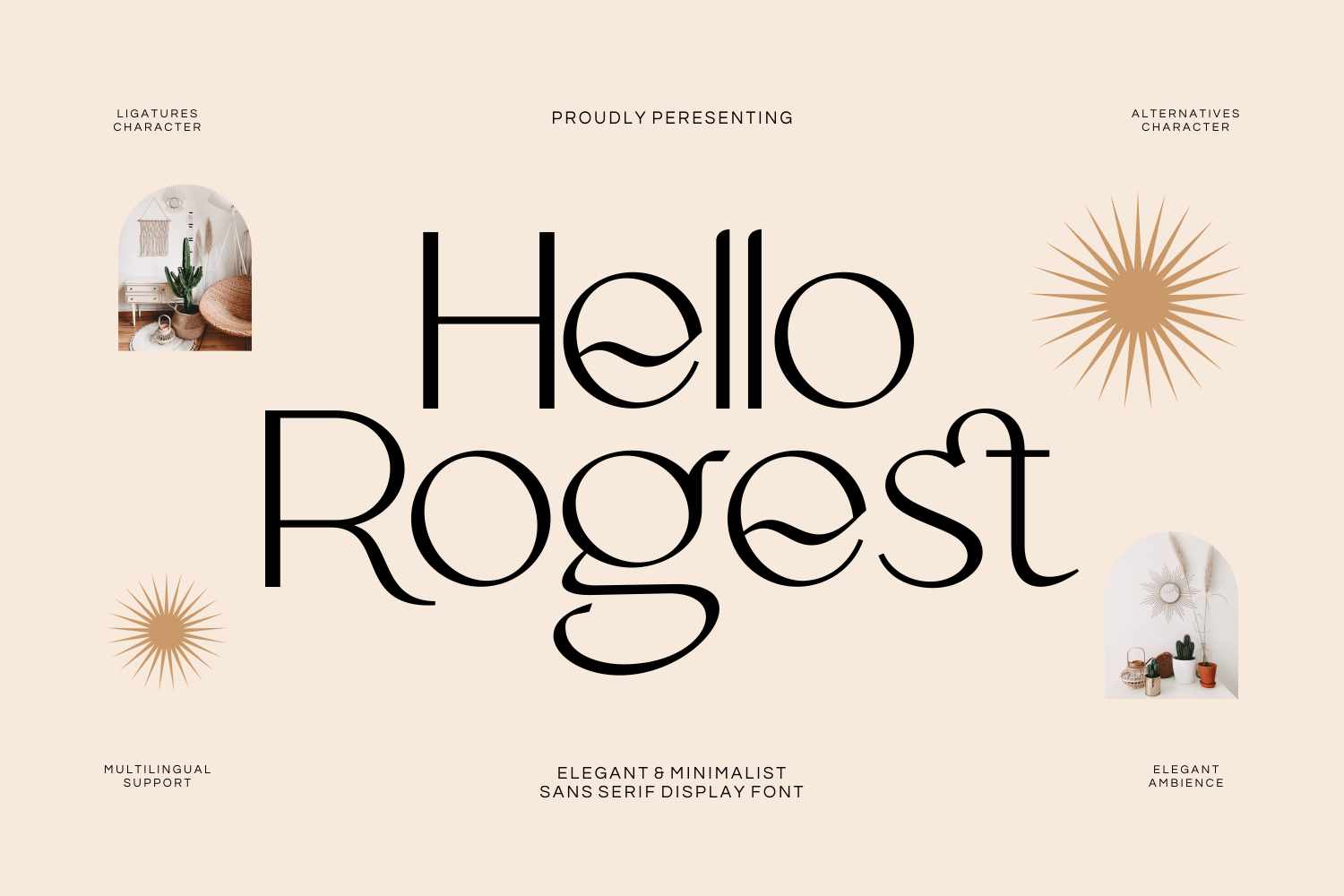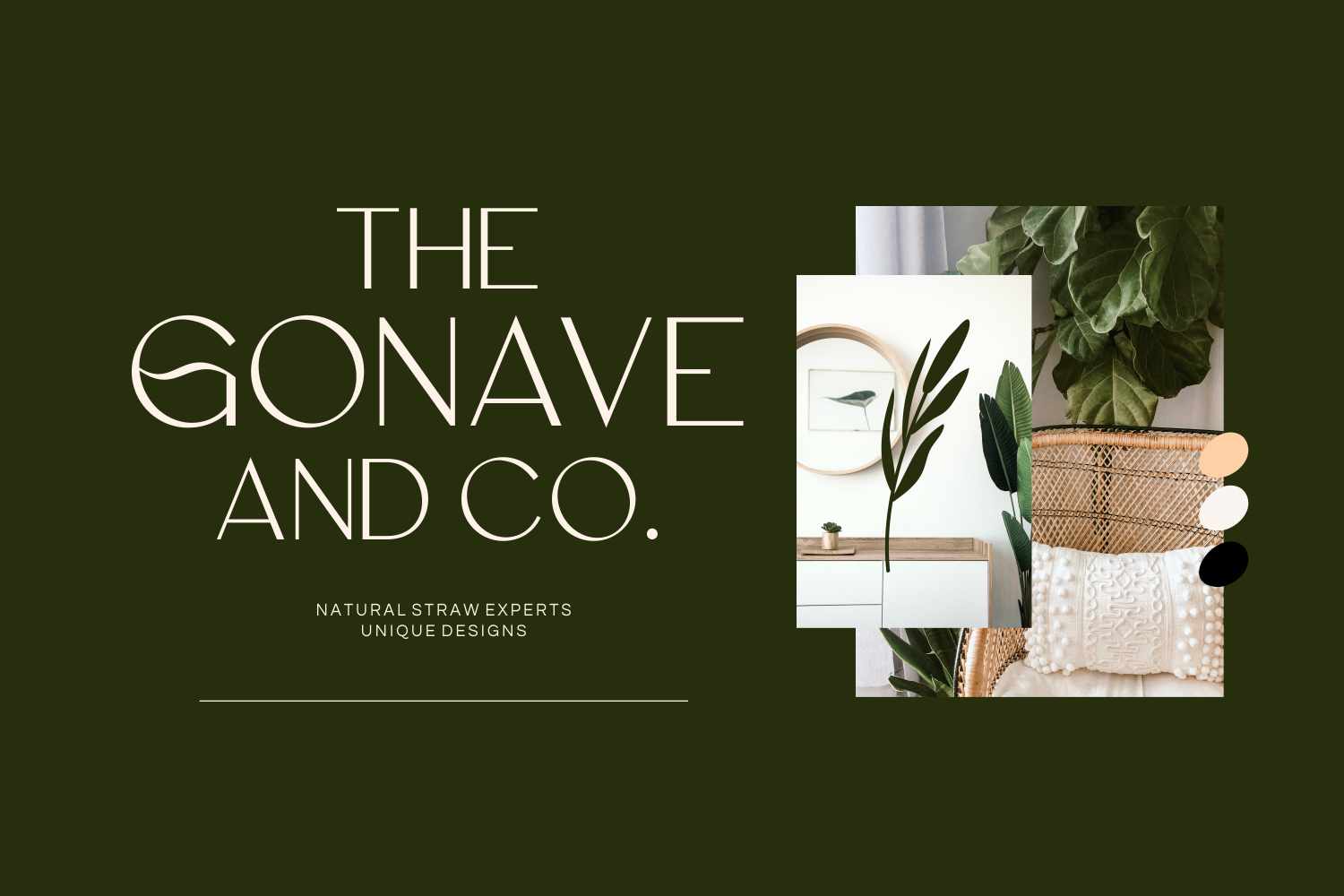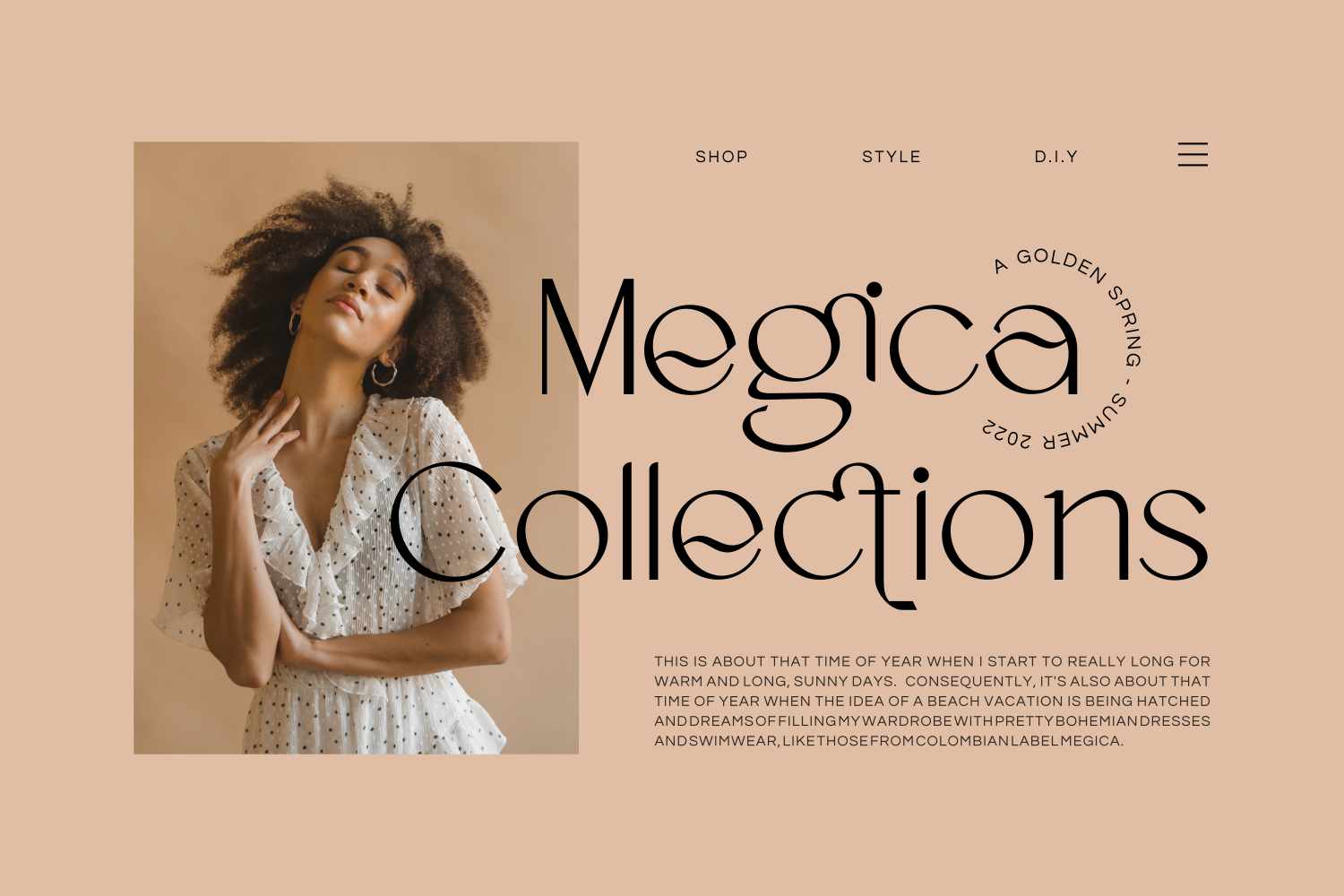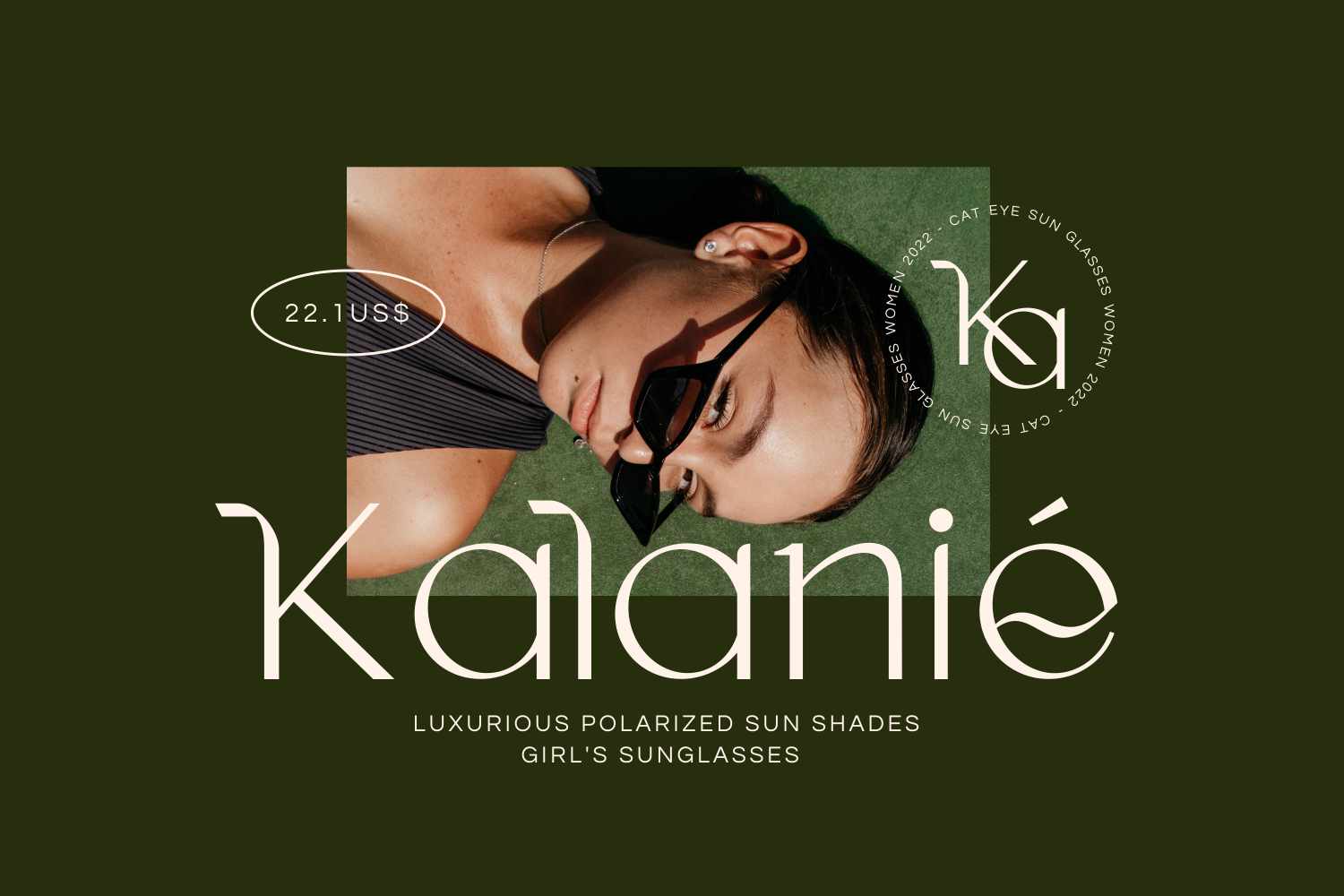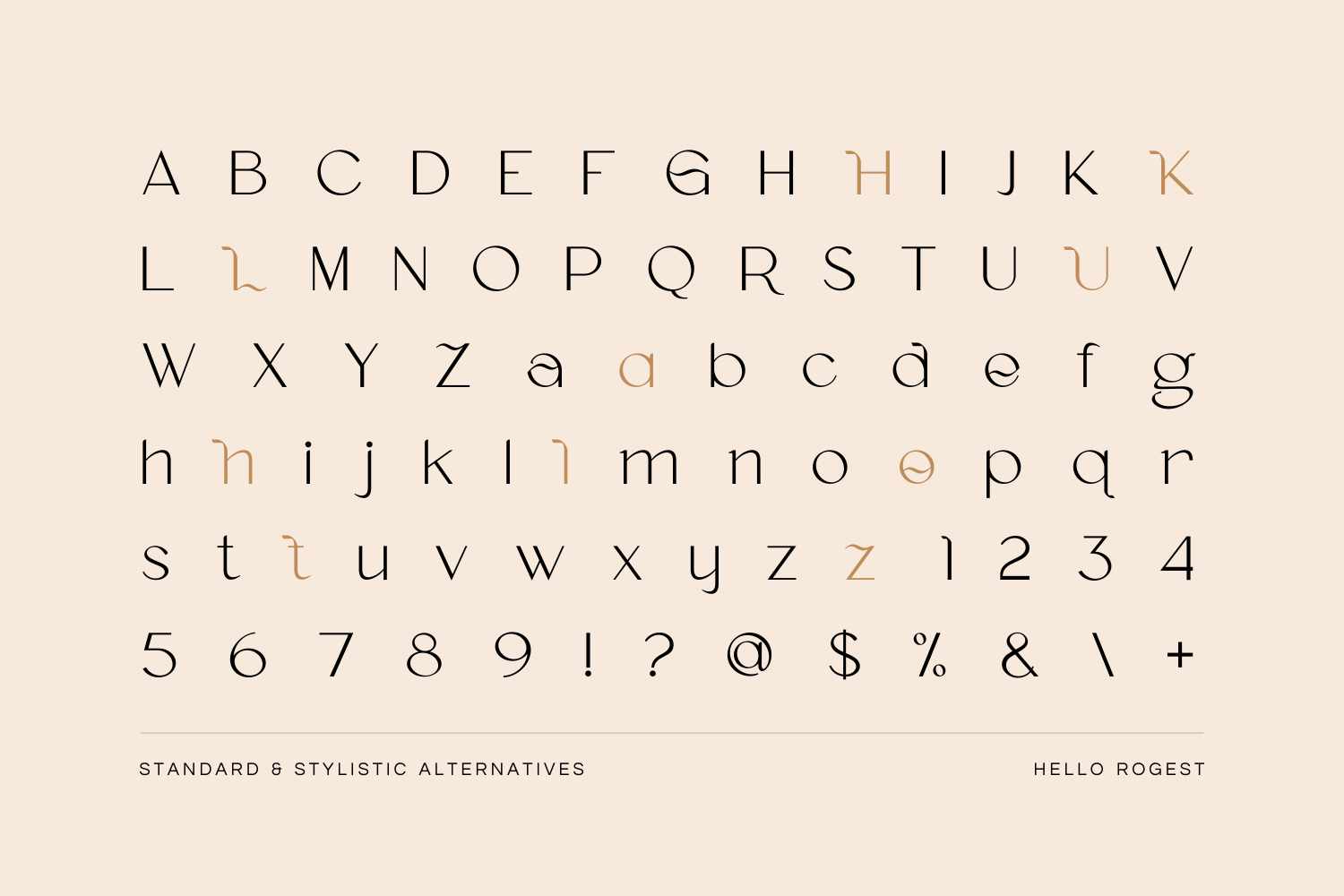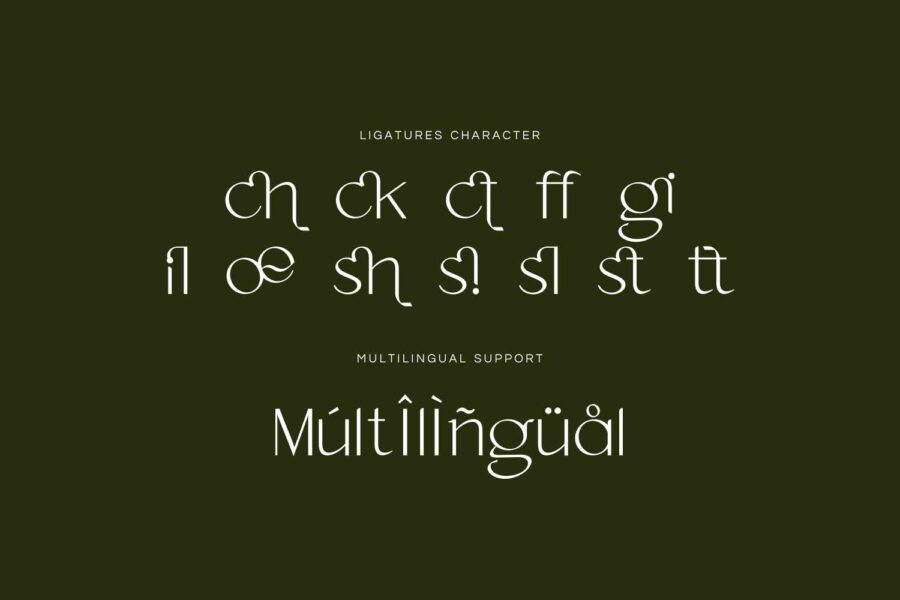
Hello Rogest
Introducing Hello Rogest, a modern and minimalist sans serif display font designed to blend elegance with character. With its stylish ligatures, sleek curves, and unique alternate characters, Hello Rogest is crafted to bring a refined personality to editorial layouts, lifestyle branding, fashion lookbooks, and modern packaging.
Equipped with multilingual support, alternate glyphs, and a wide range of ligatures, this typeface offers flexible functionality for both digital and print. Whether you’re designing a chic logo, social media content, or an upscale product label, Hello Rogest provides a distinctive voice to your visual language.